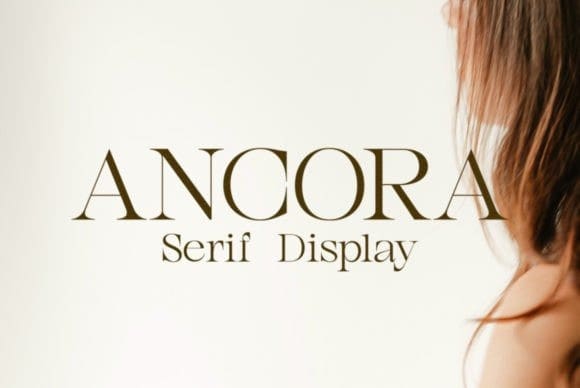
Ancora Font
Ancora Font is a font that combines elegance with visual power. With strong yet flowing letters, this font exudes boldness and elegance in every sign. The sleek lines provide a modern touch, while the beautiful serif elements add a classic touch. Splendora Display is suitable for use in headlines, website titles, and graphic design projects that require strong visual prominence.